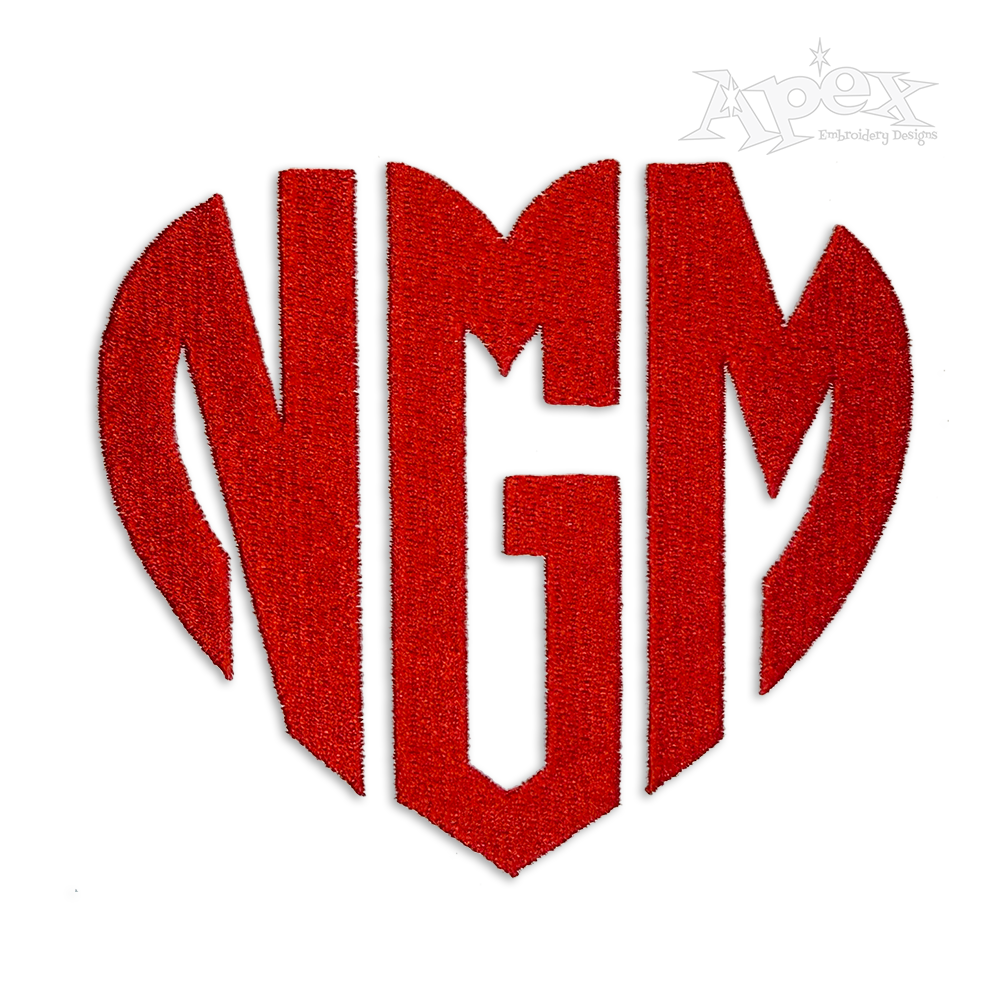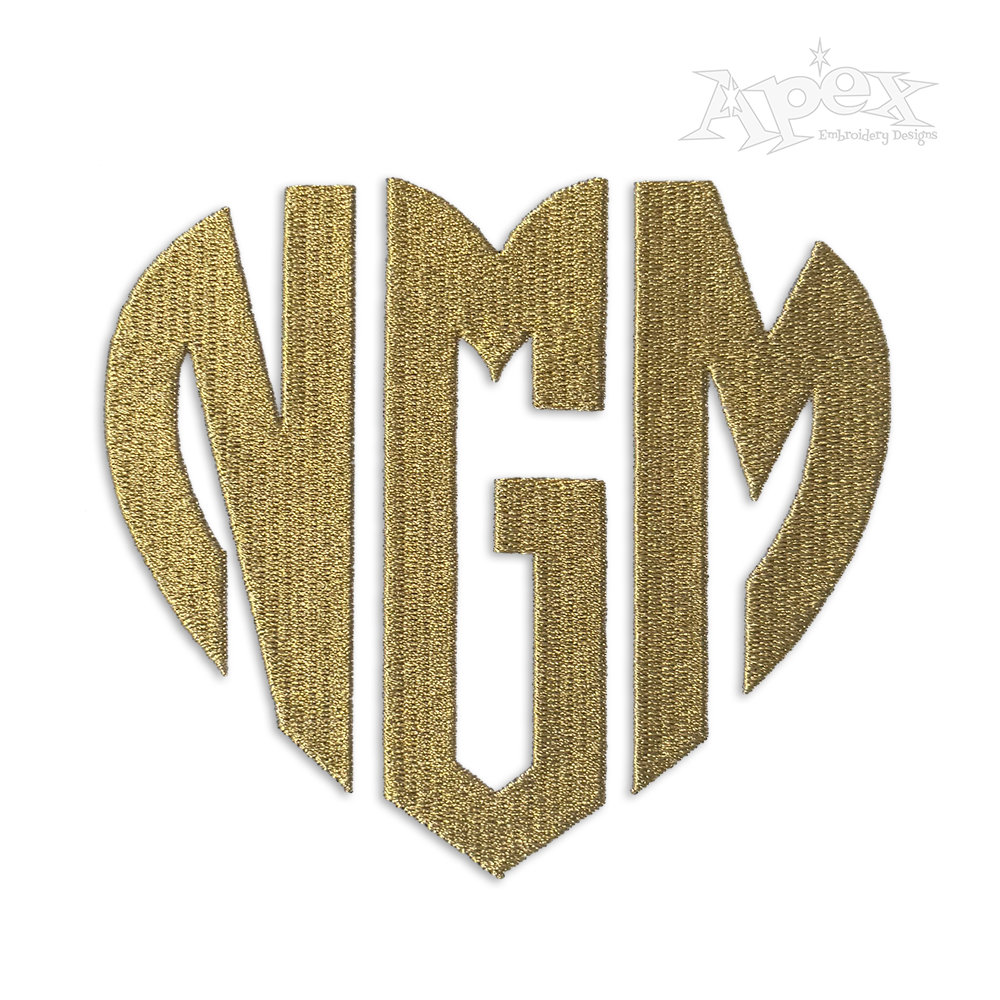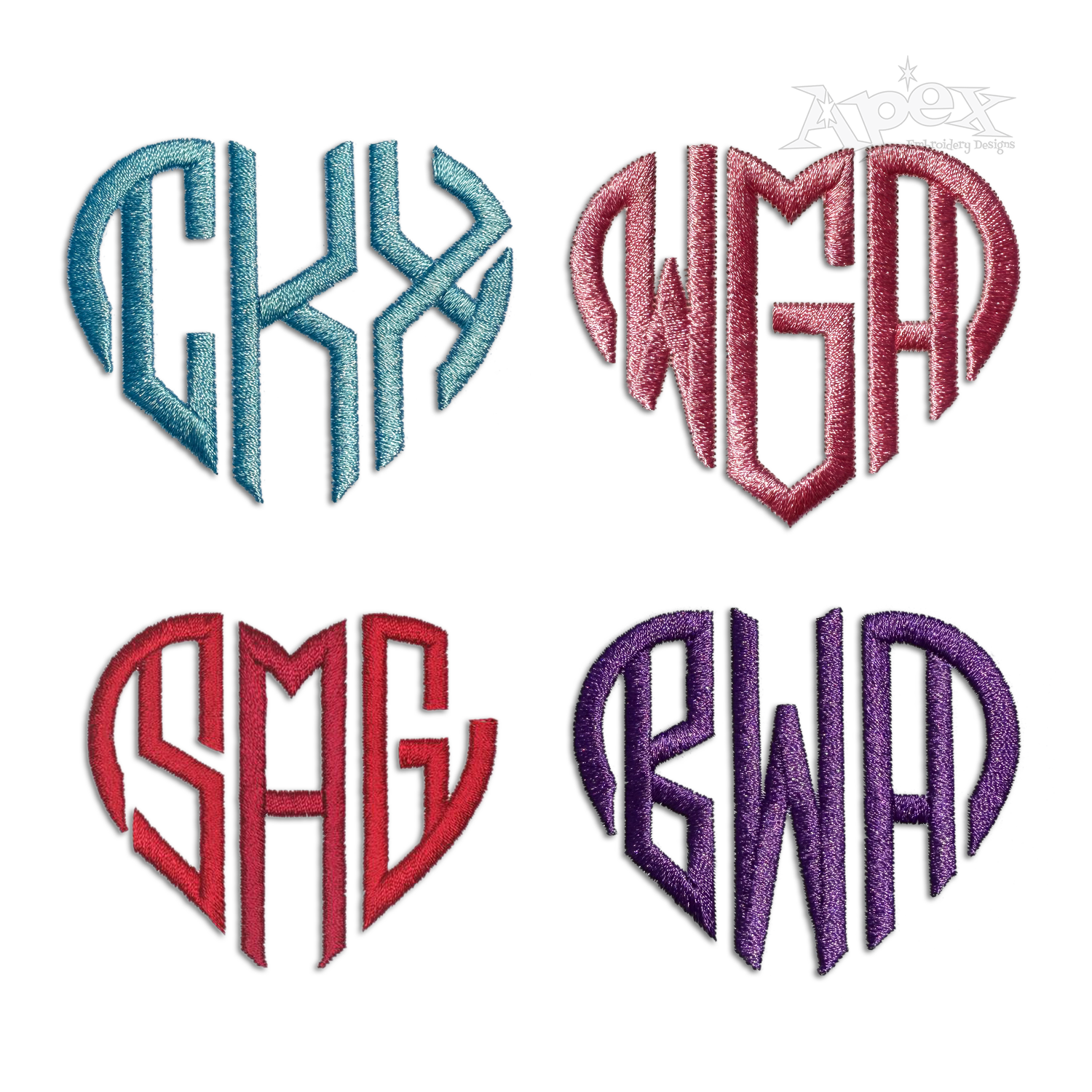
Heart Monogram Fill Embroidery Font
Create clean and stylish lettering projects with this Heart Monogram Fill Embroidery Font. This heart shaped monogram alphabet is designed for machine embroidery and is perfect for personalized Valentine Day initials, wedding names, love monograms, gifts, apparel, home décor, and custom sewing projects.
Perfect For
- Monogram towels
- Personalized shirts
- Applique Sweatshirts and jackets
- Tote bags
- Baby and kids items
- Pillow covers
- Blankets
- Custom gifts
- Initials and name projects
- Heart Boutique-style sewing projects
Font Features
- Heart shaped monogram machine embroidery font
- Alphabet lettering sewing pattern
- Great for initials, names, and custom text
- Clean stitched texture for a polished monogram look